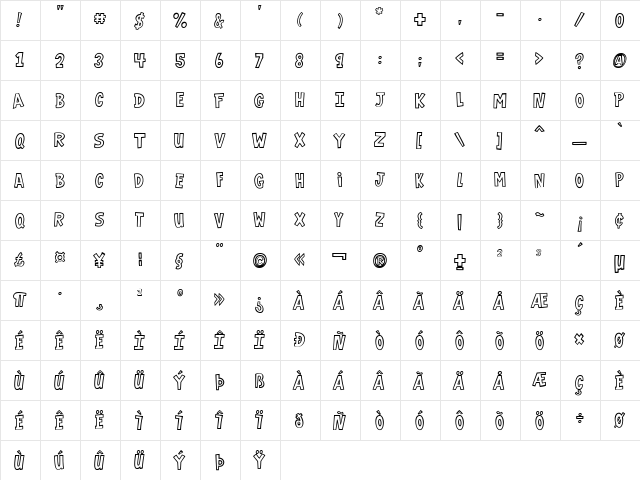
VTCGarageSale Outlined
| Style | Outlined |
| Foundry | Larry E.Yerkes - WolfBainX - V.T.C. Vigilante Typeface Corporation |
| Designer | Larry E.Yerkes - Vigilante Typeface Corporation V.T.C. |
Design Context for VTCGarageSale Typeface
VTCGarageSale is built around its visual character rather than neutral utility — its distinctive forms are designed to make an impression at display sizes.
Font Pairing: Pair with a clean neutral sans-serif for body copy to let VTCGarageSale's character lead without overwhelming the composition.
Pro Tip: Treat VTCGarageSale as the centrepiece of your typographic hierarchy. One strong heading set in a decorative face can carry an entire layout.